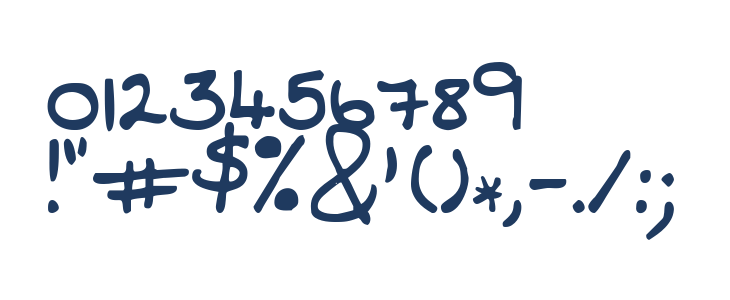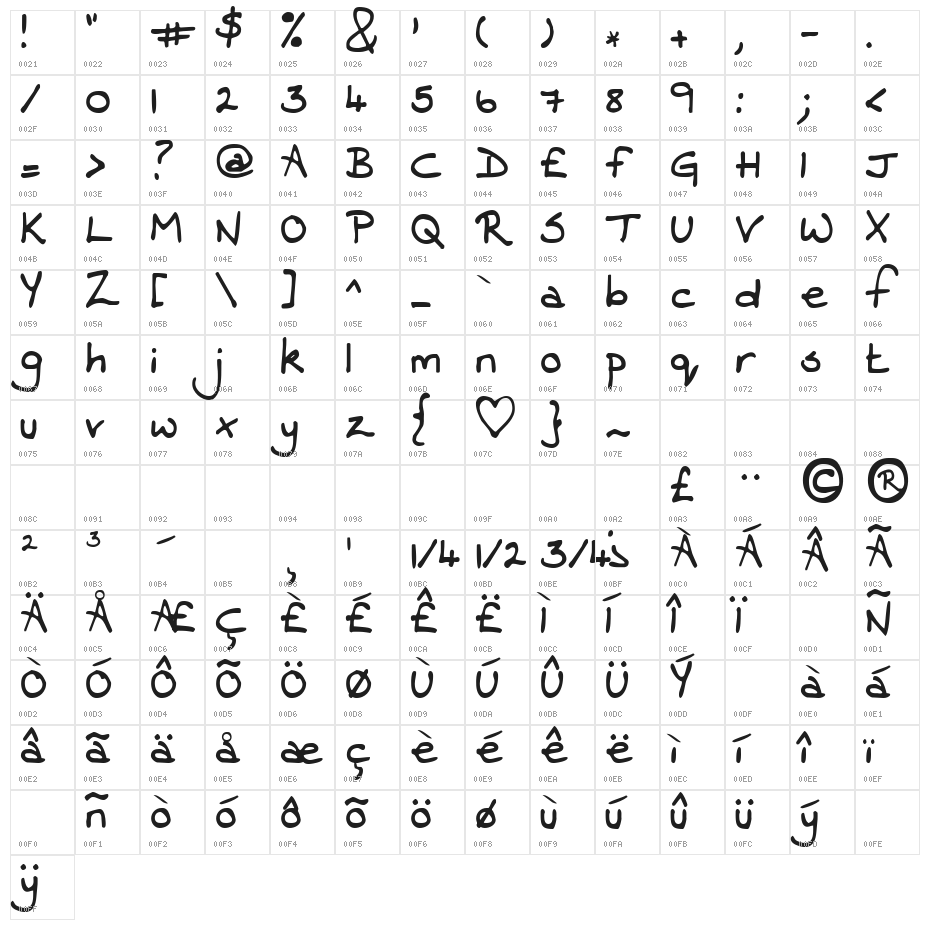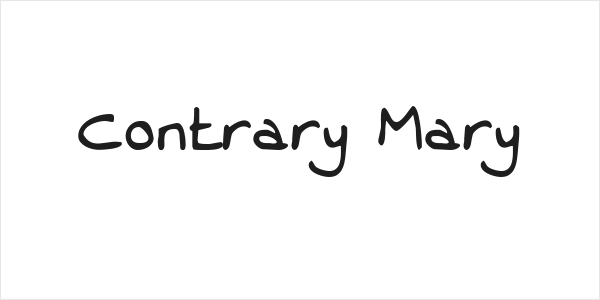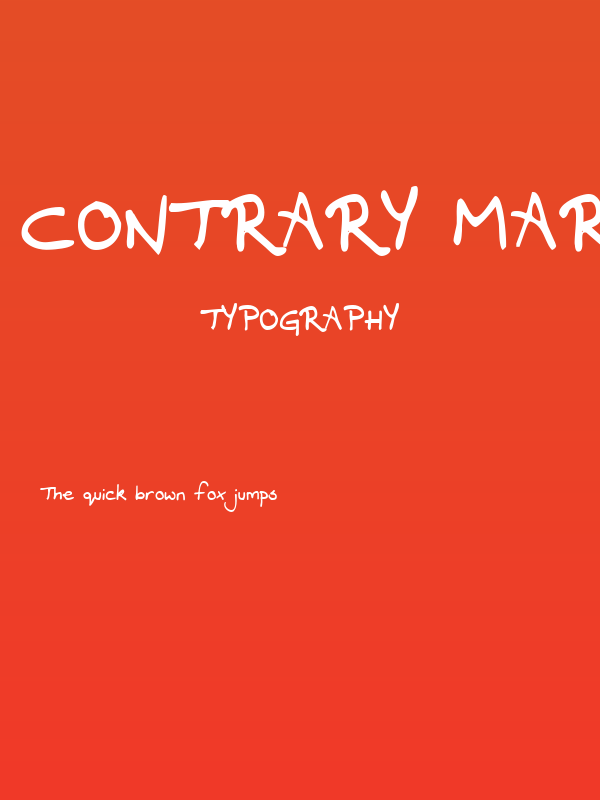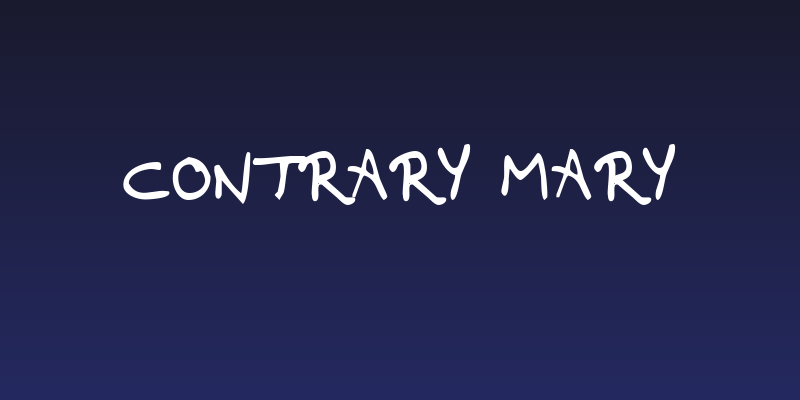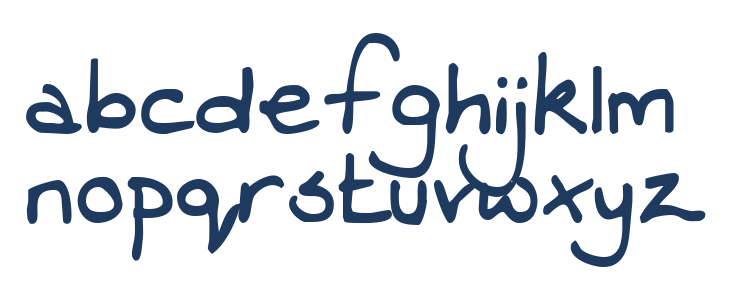
Contrary Mary Font
Contrary Mary Description
This font exudes a playful and casual handwritten style, characterized by its smooth, flowing curves and slightly irregular letterforms. The uppercase and lowercase letters maintain a consistent stroke width, giving it a uniform appearance while retaining a personal touch. The numerals and special characters follow the same design principles, ensuring a cohesive look across all glyphs. Its informal aesthetic makes it ideal for projects that require a friendly and approachable vibe. The font's legibility is maintained despite its whimsical nature, making it suitable for both digital and print media.
| Use Case | Headlines, Informal text, Branding |
| Proposed Projects | Ideal for greeting cards, personal blogs, children's books, and casual branding. |